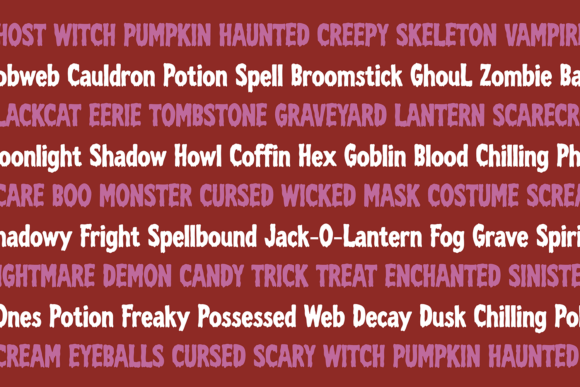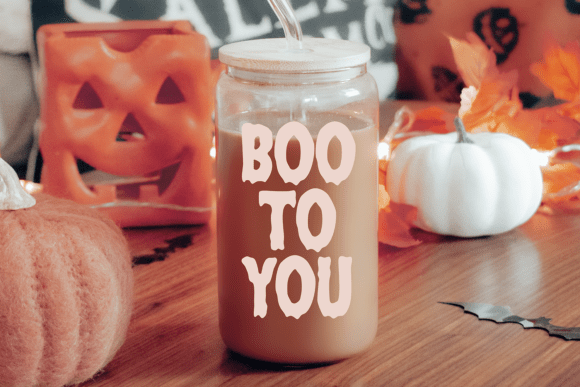
Introduction to Scream Halloween Font
As a designer, there’s nothing quite like the thrill of diving into a new creative project, especially when it’s centered around one of the spookiest holidays of the year – Halloween. It’s the perfect excuse to let your imagination run wild and experiment with bold, eerie designs that leave a lasting impression. And what better way to set the tone than with the Scream Halloween Font, a stunning display font that’s sure to send shivers down the spines of your audience.
With its melting, horror-inspired letterforms, this free download font is a game-changer for designers looking to add a touch of whimsy and fright to their projects. Whether you’re creating a haunted house flyer, a scary movie title, or a spooky poster, Scream instantly brings that ghoulish touch with a cartoon flair that’s perfect for both adult and kid-friendly designs.
Key Features of Scream Halloween Font
- Unique and Spooky Design: Scream Halloween Font is a perfect design resource for creative projects that require a touch of horror and mystery.
- High-Quality Font: This font features high-quality, detailed characters that are sure to add a spooky ambiance to your design.
- Perfect for Halloween and Horror-Themed Projects: Scream Halloween Font is specifically designed for Halloween and horror-themed projects, making it a must-have design resource for designers working on these types of creative projects.
Honest Review: Scream Halloween Font
I recently stumbled upon the Scream Halloween Font and was excited to see how it would add to my design projects. As a designer, I’m always on the lookout for unique and creative resources to enhance my work.
The font is a free download, which is a definite plus. I appreciate when designers share their work without expecting anything in return. The font itself is quite versatile and has a spooky yet elegant feel to it. The transparent background makes it easy to integrate into any design, which is perfect for my creative projects.
- Unique and creative design
- High-quality font
- May not be suitable for all design styles
- Limited characters and glyphs
Overall, I’m impressed with the Scream Halloween Font. It’s a great addition to any design resource library and can add a touch of spooky elegance to any creative project. However, it’s essential to keep in mind its limitations and potential uses before incorporating it into your design.
How to Use Scream Halloween Font
The Scream Halloween Font is a unique and high-quality design resource perfect for creative projects, especially those related to Halloween or spooky themes. This font is available for free download and features a transparent background, making it easy to integrate into various design platforms.
Tips for Getting the Most Out of the Scream Halloween Font
To get the most out of the Scream Halloween Font, consider the following tips:
1. Use the font in combination with other spooky design elements, such as skulls, bats, or spiders.
2. Experiment with different font sizes and colors to create a unique and eye-catching effect.
Common Use Cases for the Scream Halloween Font
The Scream Halloween Font is perfect for a variety of creative projects, including:
Q: Can I customize the Scream Halloween Font to fit my design project’s specific needs?
Yes, the Scream Halloween Font is a highly customizable design resource. You can adjust the font size, color, and style to fit your project’s unique requirements. Additionally, you can combine the font with other design elements to create a unique and eye-catching design.